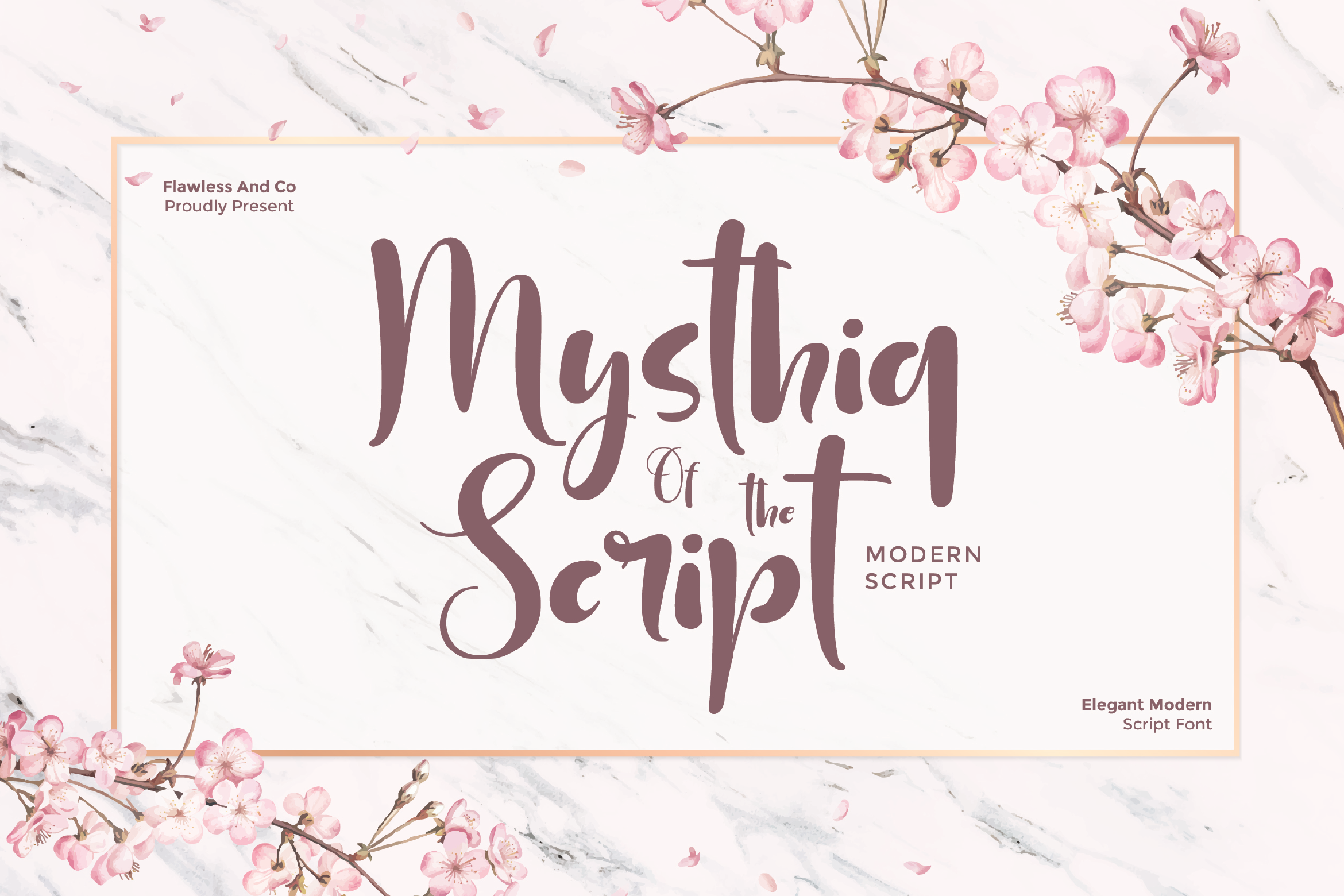
Mysthiq - Modern Script Font
Mysthiq – Modern Script Font
Mysthiq is an elegant and stylish modern script font designed to bring a perfect blend of sophistication and creativity to your designs. With its graceful curves and contemporary feel, Mysthiq captures attention effortlessly while maintaining a timeless charm. Whether you’re crafting wedding invitations, luxury branding, product packaging, or editorial designs, Mysthiq adds a refined personal touch that elevates your project. Its versatile letterforms are perfect for both large, bold headlines and delicate, intricate details.
Who Should Use Mysthiq?
Mysthiq is perfect for designers, brand creators, and entrepreneurs who want to infuse their projects with elegance, style, and a personal touch. It’s ideal for those working in wedding stationery, luxury branding, beauty and fashion campaigns, lifestyle blogs, and product packaging—anyone who values a sophisticated script font that leaves a lasting impression.
A Must-Have Font for Brand, Logo, Wedding, and Beauty Creators and Designers
Mysthiq is an essential choice for professionals and creatives who want to bring elegance, charm, and timeless appeal to their projects. Whether you’re designing a brand identity, crafting a signature logo, creating romantic wedding invitations, or enhancing beauty and fashion visuals, Mysthiq delivers the perfect balance of sophistication and style.
Why Choose Mysthiq for Brand, Logo, Wedding, and Beauty Projects?
Mysthiq stands out with its graceful letterforms, refined curves, and versatile design, making it ideal for elevating any creative work. Its sophisticated style adds a luxurious and romantic feel to wedding stationery, enhances the visual impact of beauty and fashion branding, and gives logos a timeless, professional edge. Whether for high-end brands or personal projects, Mysthiq ensures your designs captivate and leave a lasting impression.
Suitable For:
- Brand identity and logo design
- Wedding invitations and stationery
- Beauty, fashion, and lifestyle branding
- Product packaging and label design
- Social media graphics and marketing materials
- Editorial layouts and magazine covers